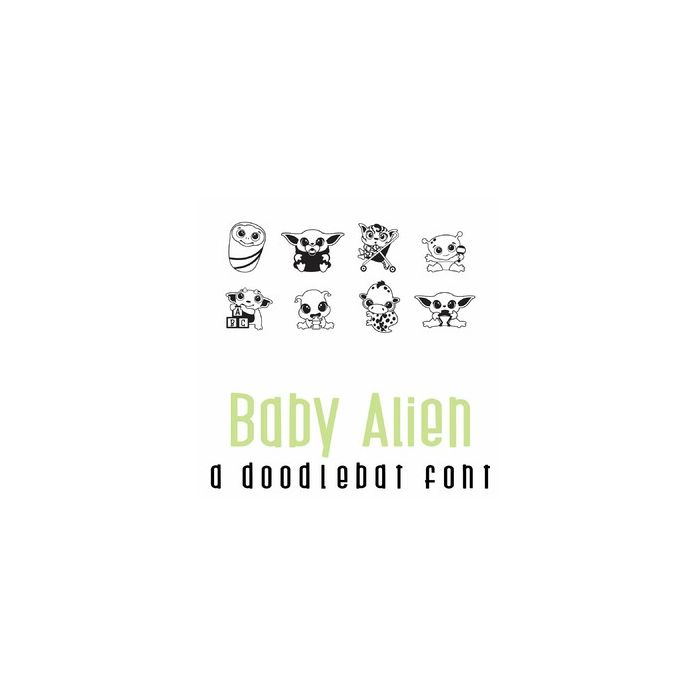
This fun doodlebat font features 26 baby aliens perfect for Halloween, parties, decor, crafts, card making, planner stickers, scrap book pages and more!